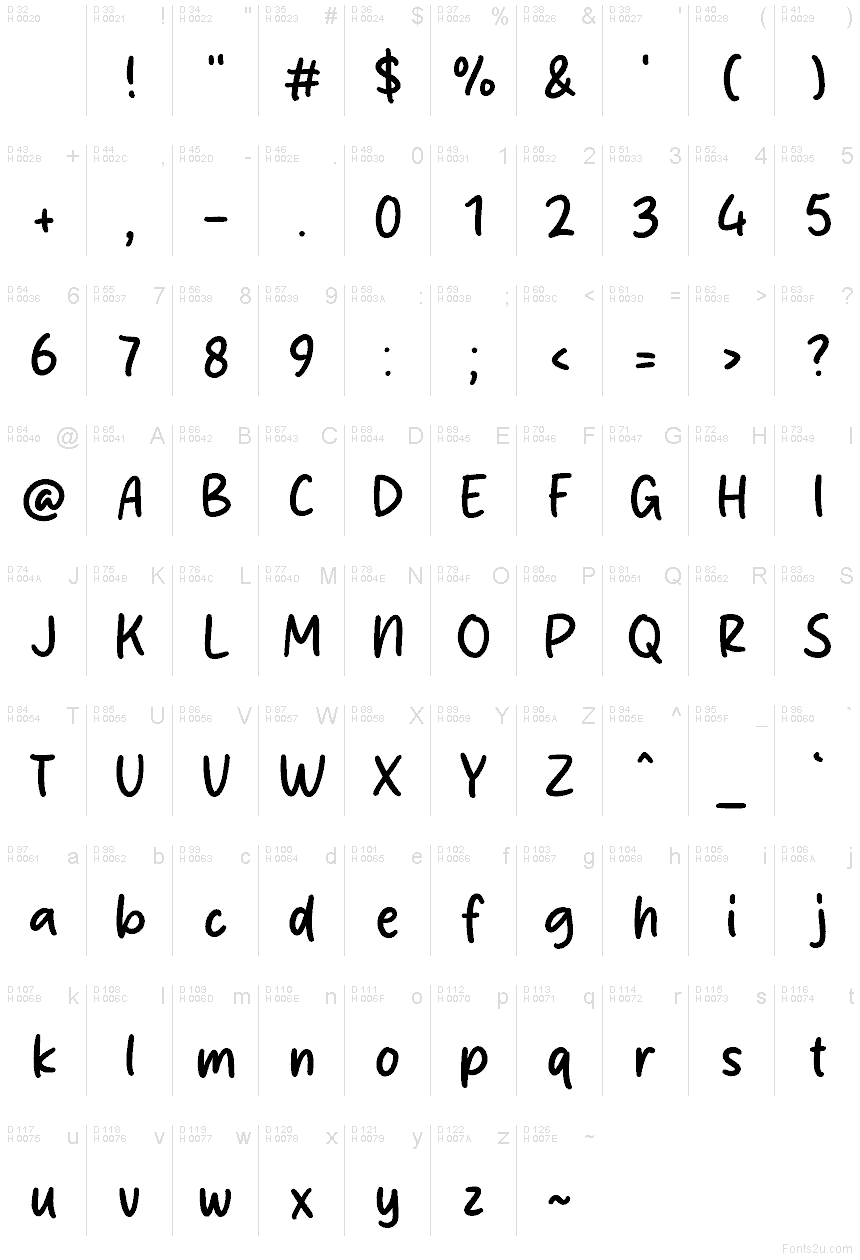
Organic Plant
Organic Plant font by Origin Type is a free handwritten font that feels like it was sketched with a soft marker on recycled paper. Rounded strokes, gentle curves, and a slightly bouncy rhythm give it an easygoing, human warmth that still reads cleanly at a glance. It has that friendly, down‑to‑earth vibe that suits anything eco-minded, homemade, or wellness-focused without looking childish or messy.
Using Organic Plant, this free font shines on product packaging, farmers’ market signage, organic food labels, wellness branding, social media graphics, recipe cards, and crafty DIY printables. Its casual flow brings authenticity to slogans and taglines, especially at medium to large sizes. Pair this handwritten typeface with a simple sans serif for body text to keep your layouts fresh, grounded, and easy to read.